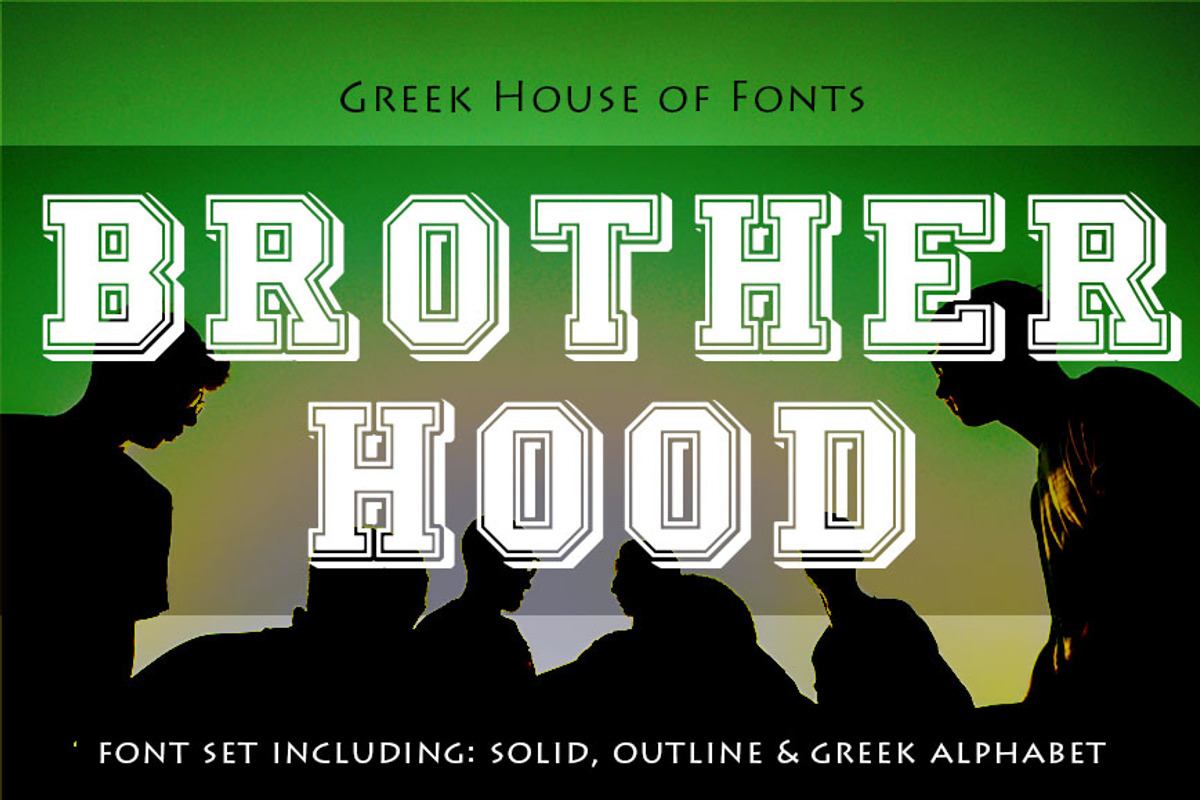
Please note that you must purchase this font for commercial use. You can download Brotherhood Greek Font Set for free, strictly for personal testing purposes only. Brotherhood is a bold and distinctive typeface inspired by Greek lettering styles, blending ancient aesthetics with modern design for a strong and cultural impact. Perfect for fraternity and sorority graphics, sports teams, university merchandise, Greek life branding, event posters, and apparel, the Brotherhood Greek Font Set Free Download brings tradition and identity to life through typography.
This set typically includes stylized Greek letterforms alongside standard Latin characters, numerals, punctuation, and multilingual support—giving you versatility in both Greek-themed and general design contexts.
Whether you're creating custom merch, campus materials, or themed event visuals, Brotherhood delivers a powerful, historic look with a contemporary twist.
Download Brotherhood Greek Font Set today and honor classical design with bold, collegiate energy.